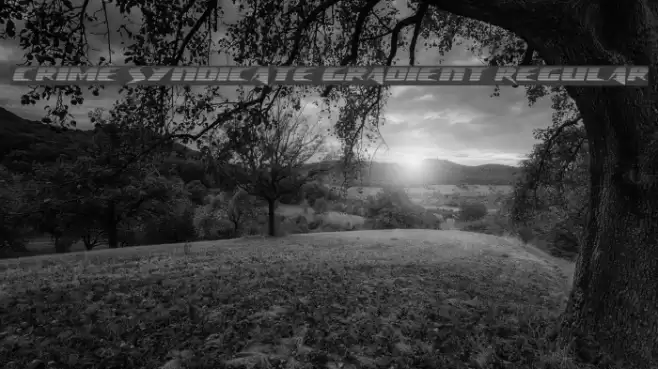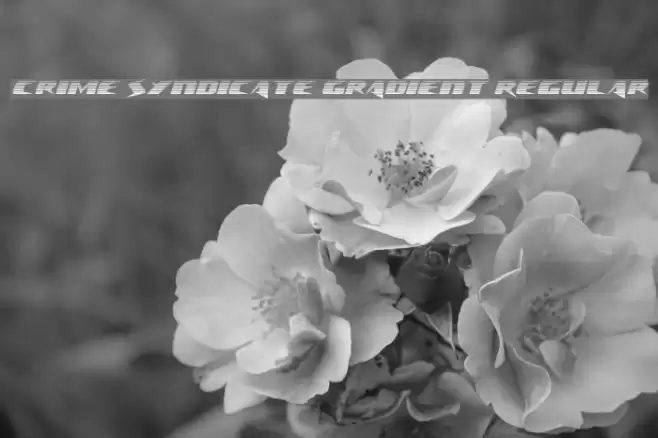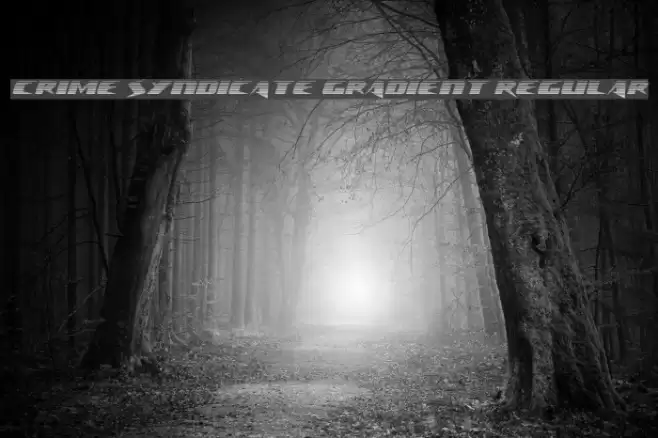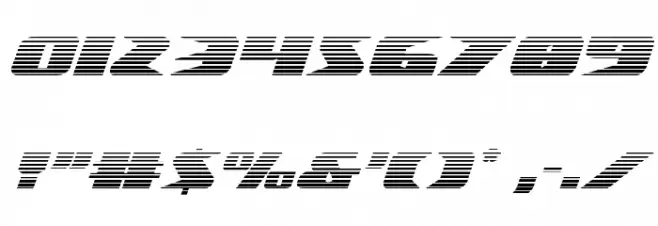
Crime Syndicate Gradient Regular Font
Crime Syndicate Gradient Regular Description
This font features a bold, futuristic design with a distinct gradient effect created by horizontal lines cutting through each character. The angular, geometric shapes give it a dynamic and edgy appearance, reminiscent of digital or cyberpunk aesthetics. The uppercase and lowercase letters maintain a consistent style, with sharp edges and a sense of motion. Numbers and special characters are designed to match the overall theme, making the font suitable for projects that require a modern, tech-inspired look.
A bold, futuristic font with a gradient effect and angular, geometric shapes from Uncategorized fonts.
- Proposed Projects: Ideal for sci-fi themed projects, video game titles, tech branding, and digital media.
- Contrast: High
- Overall Style: Futuristic, Cyberpunk